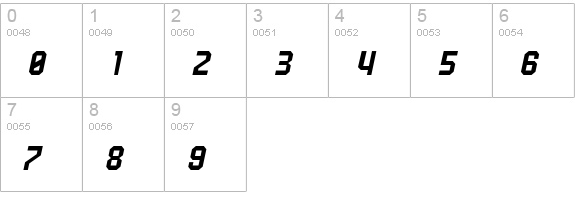
UNDA-AngleItalic is a striking and elegant font that exudes a sense of sophistication and modernity. With its unique angled design, this font captures attention and adds a touch of artistic flair to any design project. The slanted and italicized letterforms create a visually dynamic and stylish look that is perfect for a wide range of applications. This font offers a perfect balance between legibility and creativity, making it suitable for both professional and personal use. Whether you are designing a logo, creating a website, or crafting a printed document, UNDA-AngleItalic is sure to elevate your project to new heights. One of the best things about UNDA-AngleItalic is that it is available for free download at FontsMarket.com. Yes, you heard it right - this stunning font can be yours without any cost. FontsMarket.com is a reliable and reputable website that offers a vast collection of high-quality fonts, and UNDA-AngleItalic is just one of the many amazing options available. Downloading UNDA-AngleItalic from FontsMarket.com is quick and easy. Simply visit the website, locate the font, and click the download button. Within seconds, you will have this fantastic font at your fingertips, ready to enhance your design projects with its unique and captivating style. Don't miss out on the opportunity to add UNDA-AngleItalic to your font library. Download this font for free at FontsMarket.com and unlock a world of creative possibilities. Whether you are a professional designer or an enthusiastic hobbyist, UNDA-AngleItalic is a must-have font that will elevate your work and impress your audience.